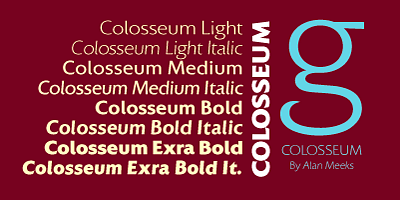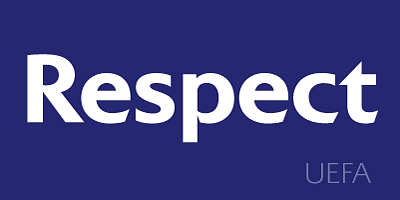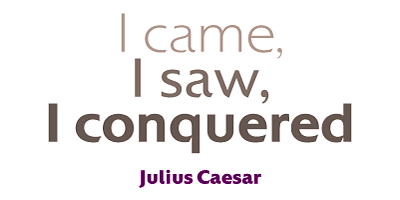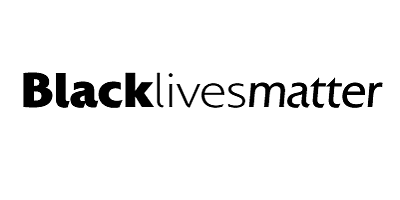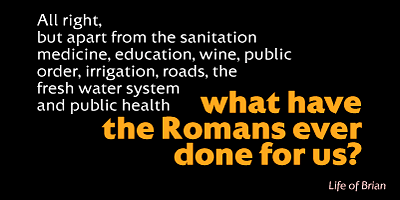
Although a sans serif, Colosseum owes its style to the original Trajan Roman form. Borrowing some characteristics from Friz Quadrata, in its san serif form it is more adaptable to text usage whilst still having a modern and original look which works well in headlines.